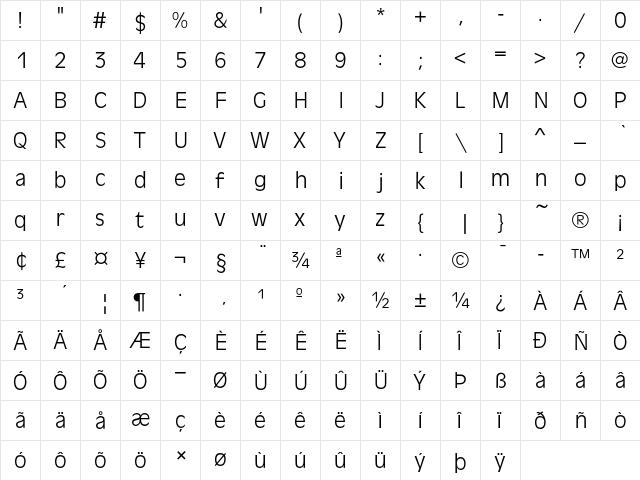
Antique Olive T Light Font Preview
Antique Olive T Light
Design Context for Antique Olive T Typeface
Antique Olive T has the warm character of retro typography — evoking diners, record sleeves, and the golden age of print advertising. Its slender proportions lend an understated elegance to any composition.
Perfect for vintage-inspired branding, retro packaging, nostalgia campaigns, and period-accurate editorial design.
Font Pairing: Combine Antique Olive T with a simple slab or neutral sans — period-accurate companions reinforce the vintage feel without competing for attention.
Pro Tip: Use Antique Olive T for headlines and pull quotes rather than body copy — its personality is best appreciated in short, focused bursts.